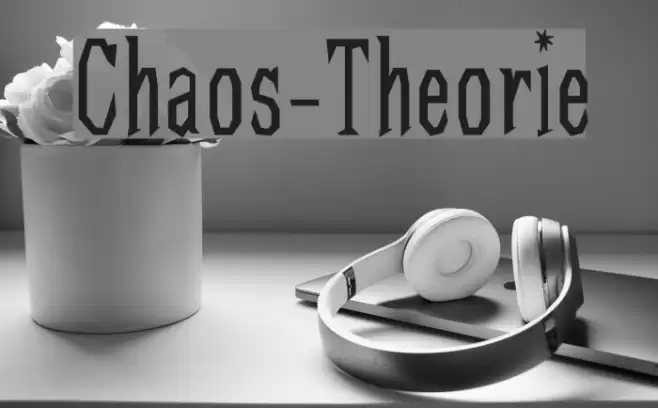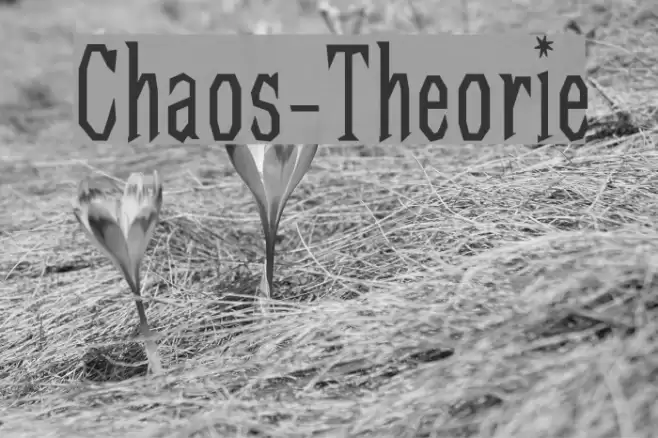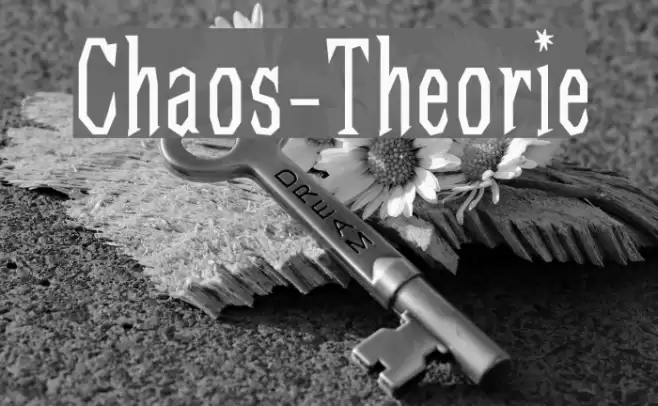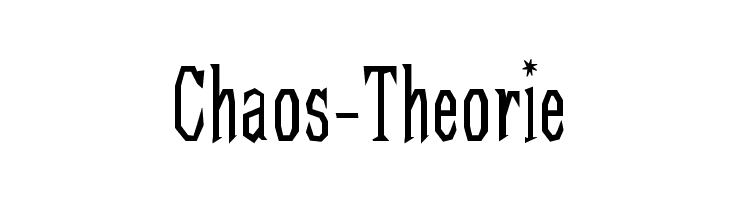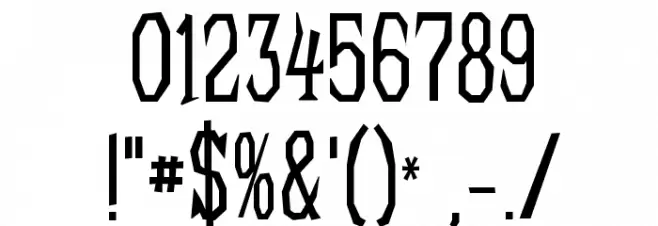
Chaos-Theorie Font
Chaos-Theorie Description
This font features a bold, angular design with sharp edges and a distinct geometric style. The uppercase letters are tall and narrow, giving a sense of height and strength. The lowercase letters maintain the angular theme, with unique character shapes that add a touch of individuality. The numbers are consistent with the overall style, featuring the same sharp angles and bold presence. Special characters are well-integrated, maintaining the font's cohesive look. This font's strong visual impact makes it suitable for attention-grabbing designs.
A bold, angular font with sharp edges and a geometric style from Decorative fonts.